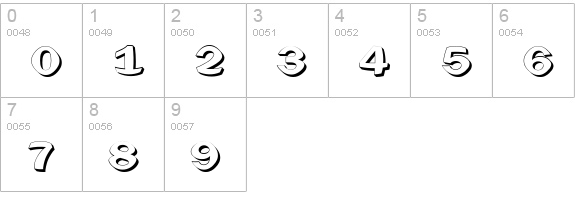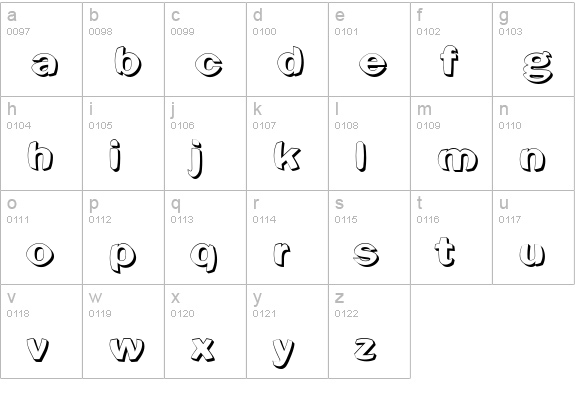
Sphericals-Shadow Font Details
Sphericals-Shadow font is a mesmerizing typeface that captures the essence of elegance and sophistication. Its unique design features perfectly rounded letterforms, with a subtle shadow effect that adds depth and dimension to each character. This font is perfect for adding a touch of modernity and class to any design project. Whether it is a logo, a poster, a website, or any other creative endeavor, Sphericals-Shadow font is sure to make a lasting impression. What makes this font even more desirable is that it is freely available to download at FontsMarket.com. This means that you can easily access and use this stunning typeface without any restrictions or limitations. With Sphericals-Shadow font, you have the freedom to unleash your creativity and bring your vision to life. Its versatility allows it to adapt to various design styles, making it an invaluable asset in your font collection. So why wait? Embrace the elegance and sophistication of Sphericals-Shadow font and take your designs to new heights. Download it for free today at FontsMarket.com and let your creativity soar.